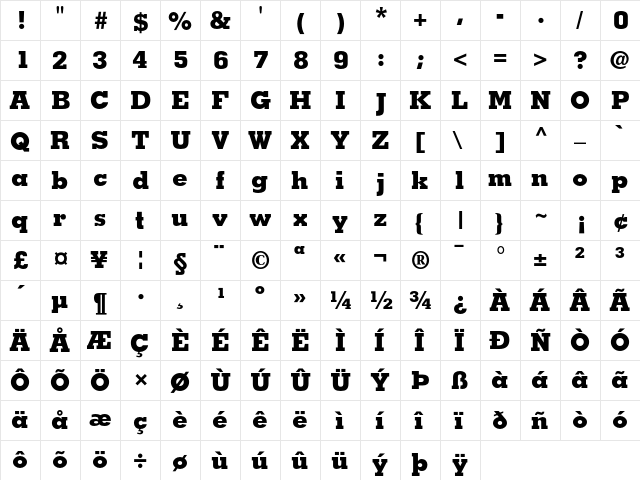
Memphis Extra Bold Font Preview
Memphis Extra Bold
Memphis Extra Bold Font Details
| Style | Extra Bold |
| Year | 1988 |
Design Context for Memphis Typeface
Memphis is a composed and adaptable typeface that performs quietly and consistently across a wide range of design contexts. Its bold stroke weight gives it real presence on the page.